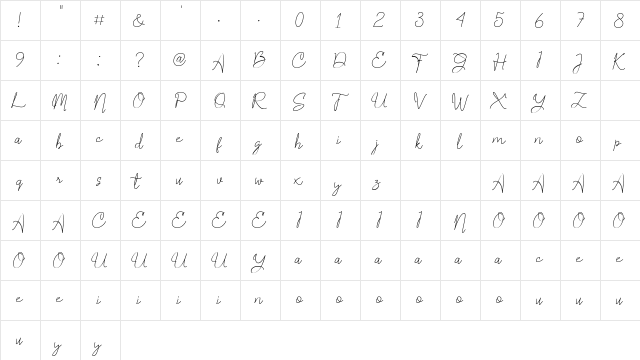
Rose Marine Regular
Design Context for Rose Marine Typeface
Rose Marine is a composed and adaptable typeface that performs quietly and consistently across a wide range of design contexts.